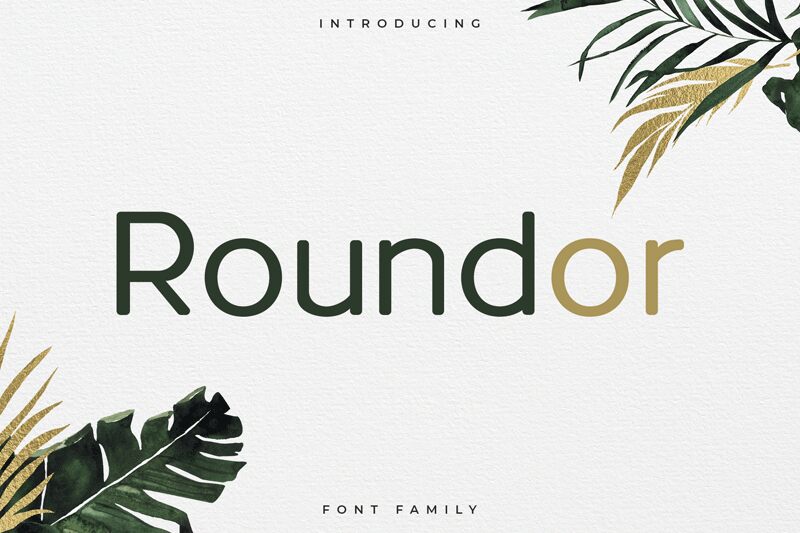
Roundor is a stunning semi-light sans serif font designed by Robin Campistron. Its expanded width adds a touch of elegance and modernity to any project it's used in. This versatile font is perfect for branding, packaging, posters, and social media graphics. Its clean lines and rounded edges make it easy to read while still standing out from the crowd. Use Roundor for your next design project and watch as your work comes to life with its stylish flair. Whether you're designing a logo or creating an eye-catching advertisement, this font will give your work the professional edge it deserves.